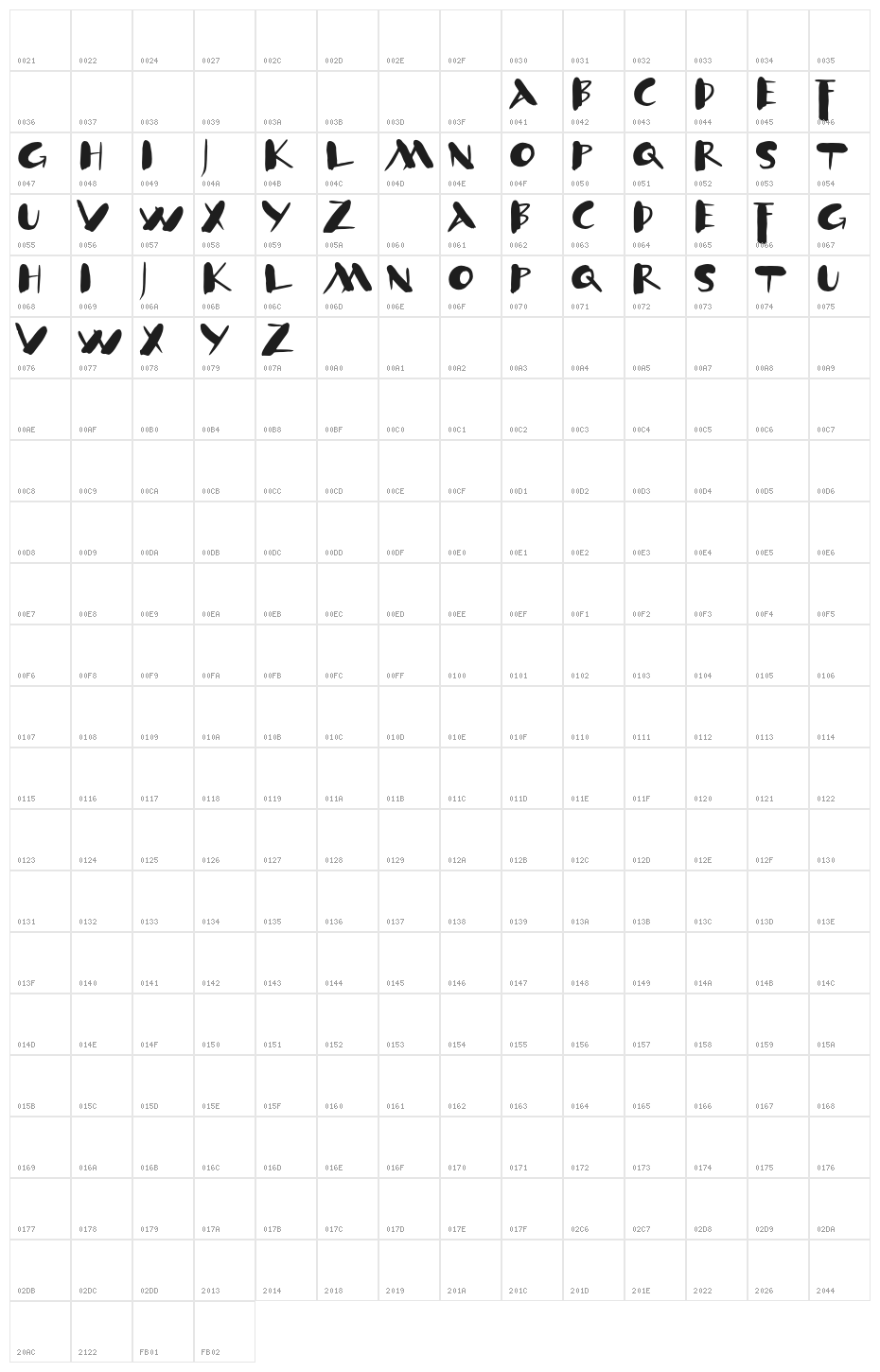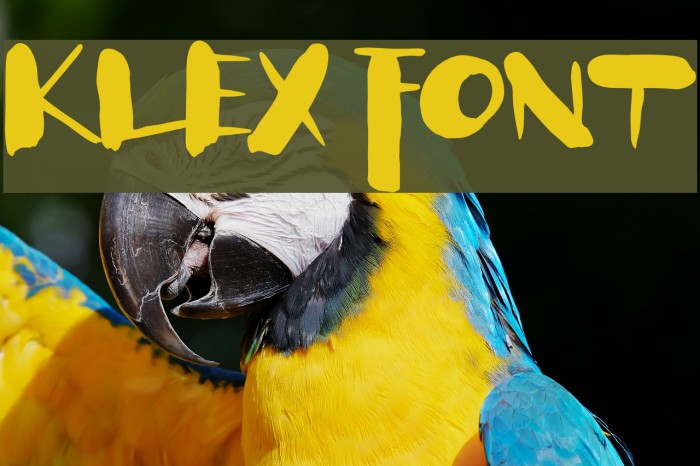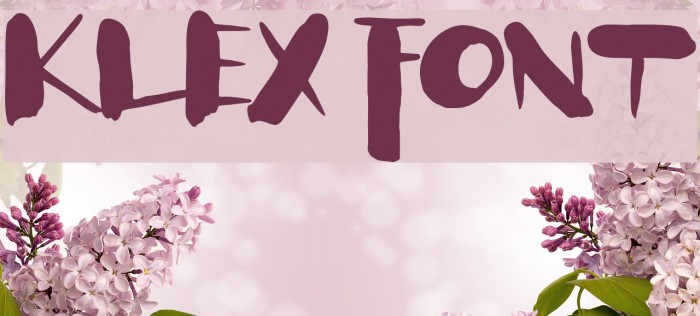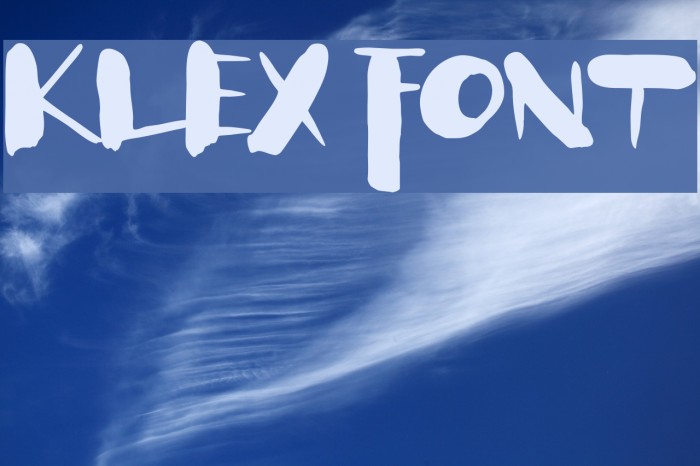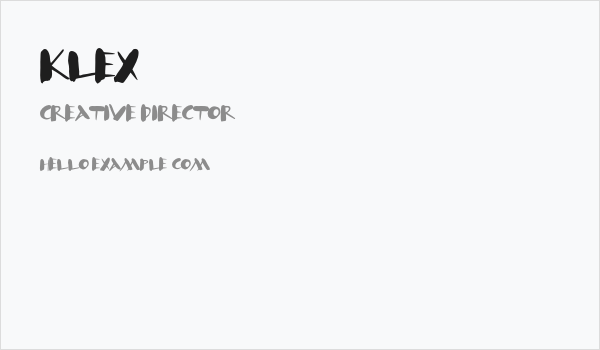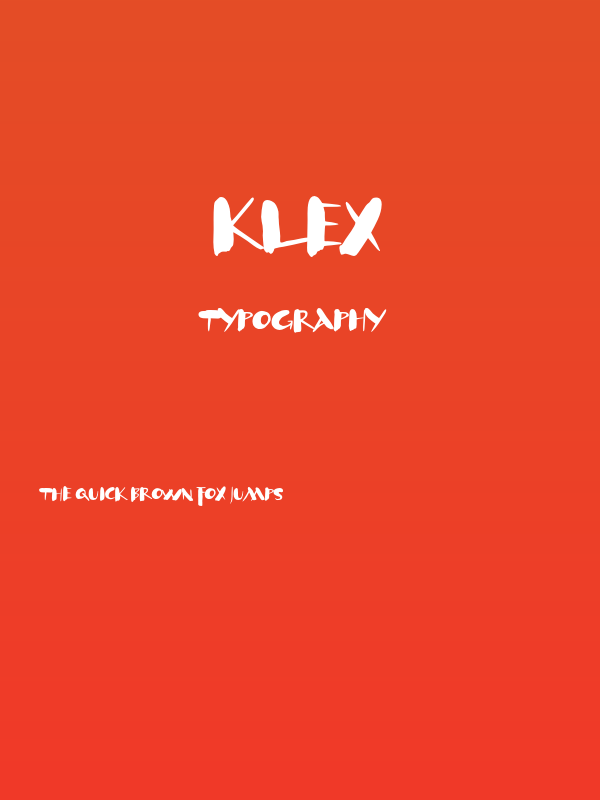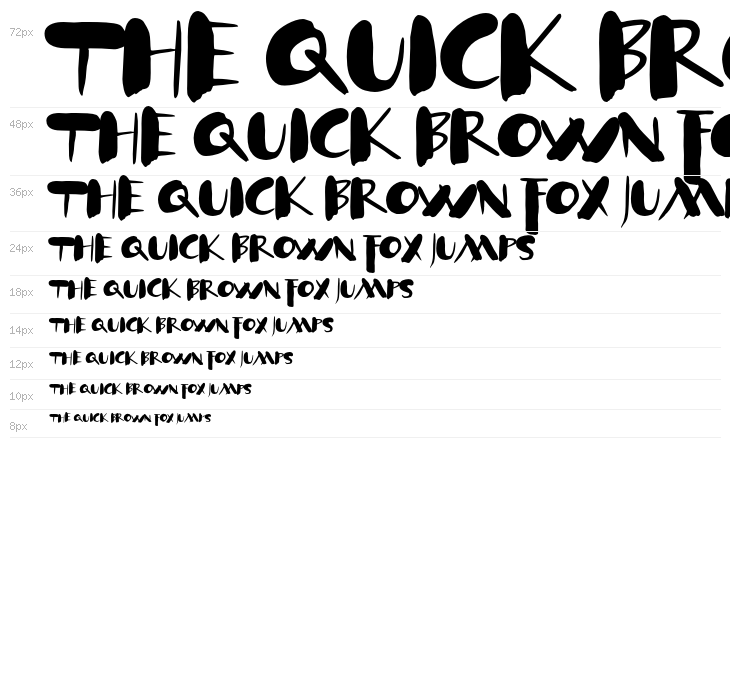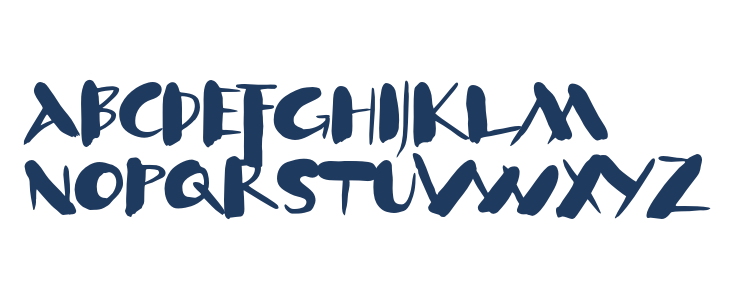
Klex Font
Klex Description
This font features a bold and expressive style with thick, brush-like strokes that convey a sense of dynamism and energy. The characters are slightly irregular, adding a handcrafted feel that enhances its artistic appeal. The uppercase letters are particularly striking, with varying widths and angles that create a sense of movement. The lowercase letters maintain the same boldness, ensuring consistency across the typeface. The numbers and special characters are equally robust, fitting seamlessly with the overall design. This font's unique character makes it stand out, perfect for projects that require a strong visual impact.
| Overall Style | Modern, Artistic |
| Proposed Projects | Ideal for posters, branding, packaging, and any creative projects that require a bold statement. |